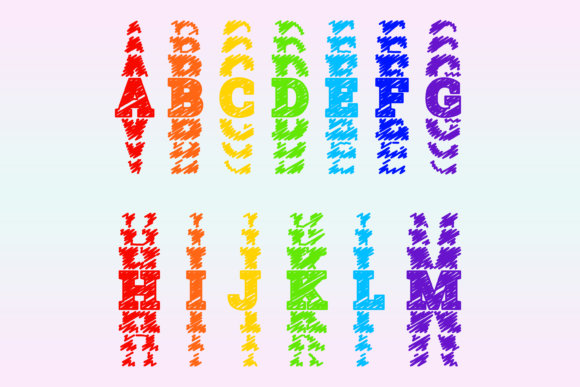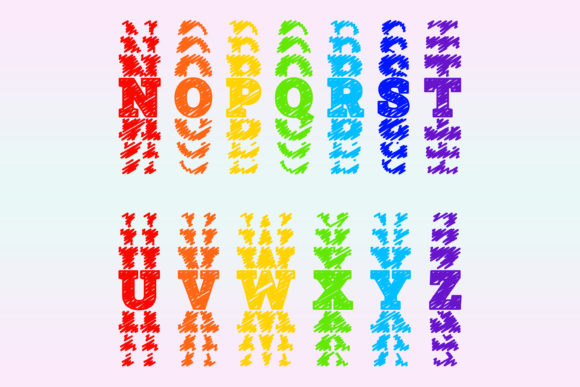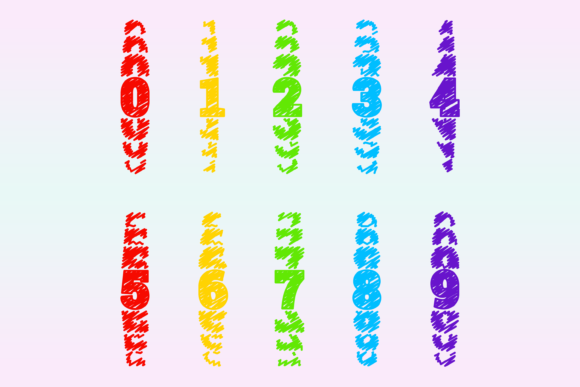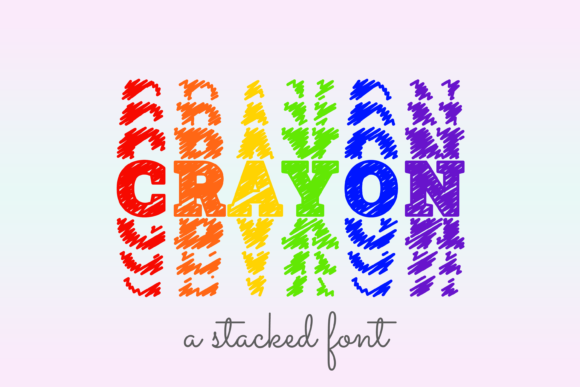
Crayon Font: A Colorful and Fun Display Font for Your Creative Projects
Crayon is an incredibly cool display font. Whether you use it for custom designs, DIY crafts, or just any creation that requires a lovely touch, this font will be an amazing choice. Its playful and vibrant style is sure to capture the attention of your audience and add a pop of color to your work. In this article, we’ll explore the features and benefits of the Crayon font, and how you can use it to take your designs to the next level.
What is Crayon Font?
Crayon font is a type of display font that mimics the look of crayon drawings. It’s a digital font that replicates the texture and color of traditional crayons, giving your text a fun and playful appearance. The font is designed to be bold and eye-catching, making it perfect for titles, headings, and other design elements that need to stand out.
Features of Crayon Font
The Crayon font has several features that make it a great choice for designers and crafters. Some of its key features include:
- Playful and vibrant style: The Crayon font has a fun and playful style that’s sure to add a pop of color to your designs.
- High-quality texture: The font features a high-quality texture that mimics the look of traditional crayons.
- Bold and eye-catching: The font is designed to be bold and eye-catching, making it perfect for titles and headings.
- Easy to read: Despite its playful style, the Crayon font is easy to read, making it suitable for use in a variety of design projects.
Benefits of Using Crayon Font
The Crayon font offers several benefits to designers and crafters. Some of the benefits of using this font include:
- Adds a personal touch: The Crayon font adds a personal touch to your designs, making them more unique and engaging.
- Perfect for kids’ projects: The font’s playful style makes it perfect for use in kids’ projects, such as children’s book titles, party invitations, and educational materials.
- Great for DIY crafts: The Crayon font is also great for use in DIY crafts, such as handmade cards, gift tags, and other paper crafts.
- Customizable: The font can be customized to fit your design needs, allowing you to adjust the color, size, and style to suit your project.
How to Use Crayon Font in Your Designs
Using the Crayon font in your designs is easy. Here are some tips to get you started:
- Choose the right size: Choose a size that’s large enough to be readable, but not so large that it overwhelms your design.
- Select a color scheme: Select a color scheme that complements your design and adds to the overall aesthetic.
- Experiment with different styles: Experiment with different styles, such as bold, italic, and underline, to add variety to your design.
- Pair with other fonts: Pair the Crayon font with other fonts to create a unique and interesting design.
In conclusion, the Crayon font is a fun and playful display font that’s perfect for adding a personal touch to your designs. Its bold and eye-catching style makes it suitable for use in a variety of projects, from custom designs to DIY crafts. With its high-quality texture and easy-to-read style, the Crayon font is a great choice for designers and crafters looking to add a pop of color to their work.
Whether you’re a professional designer or a DIY crafter, the Crayon font is a great addition to your font collection. So why not give it a try and see how it can add a touch of fun and personality to your designs?